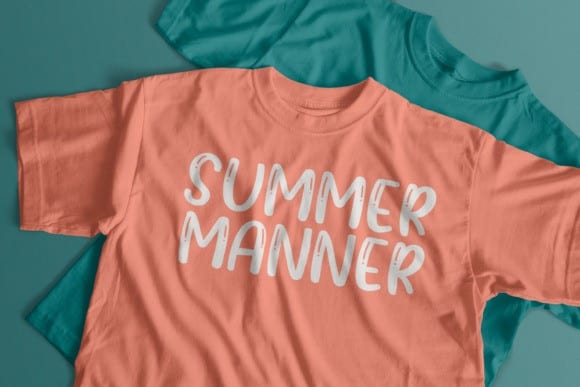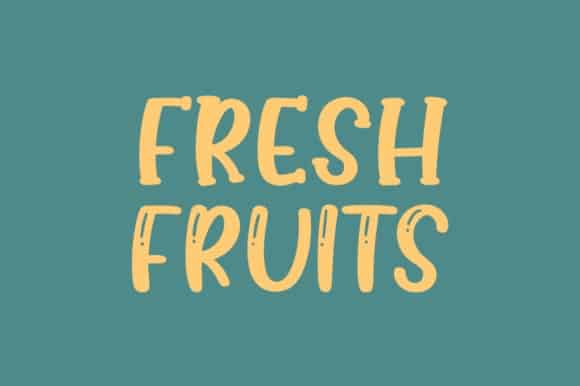
Plavea Display Font
Introducing, Plavea Display Font. A Whimsical display font. This typeface is have a playful and casual look, very suitable to use for headline, title, logo or anything especially related with fun themed design project. This font is designed and shared by agamous. It’s a sweet and friendly display font. Add it to your most creative ideas and notice how it makes them come alive!